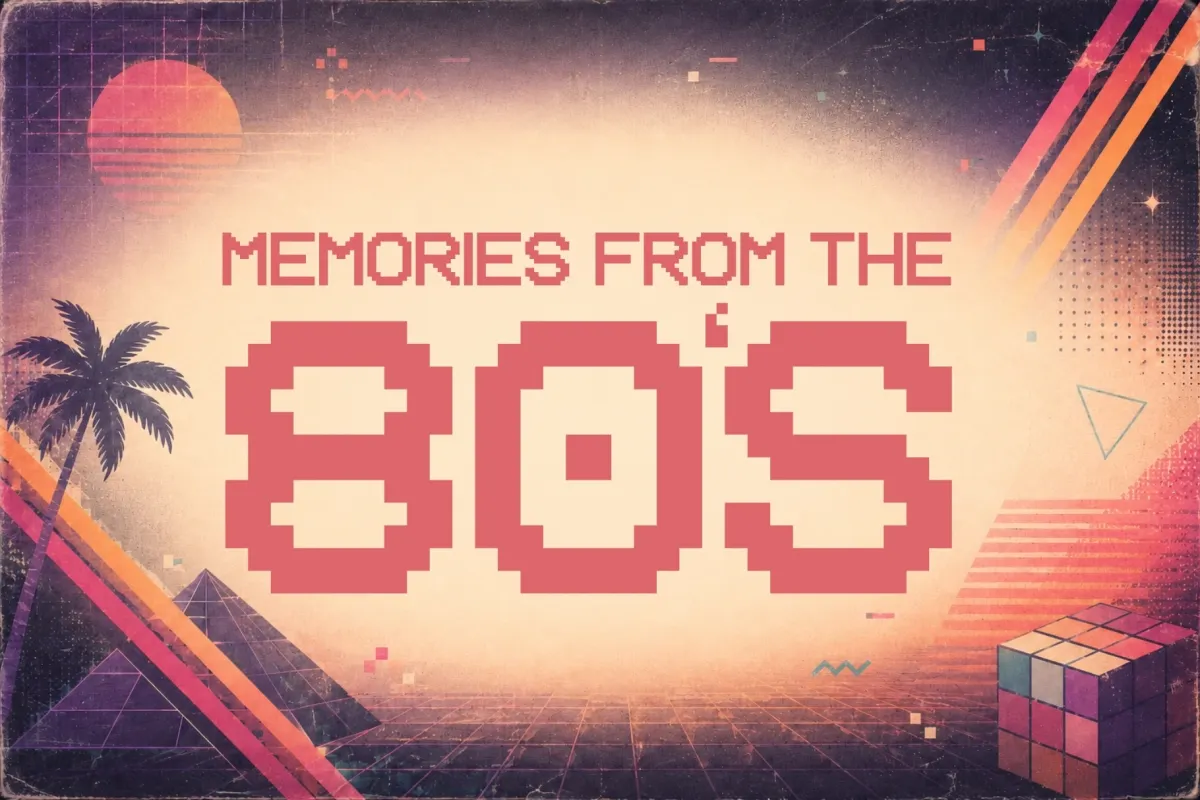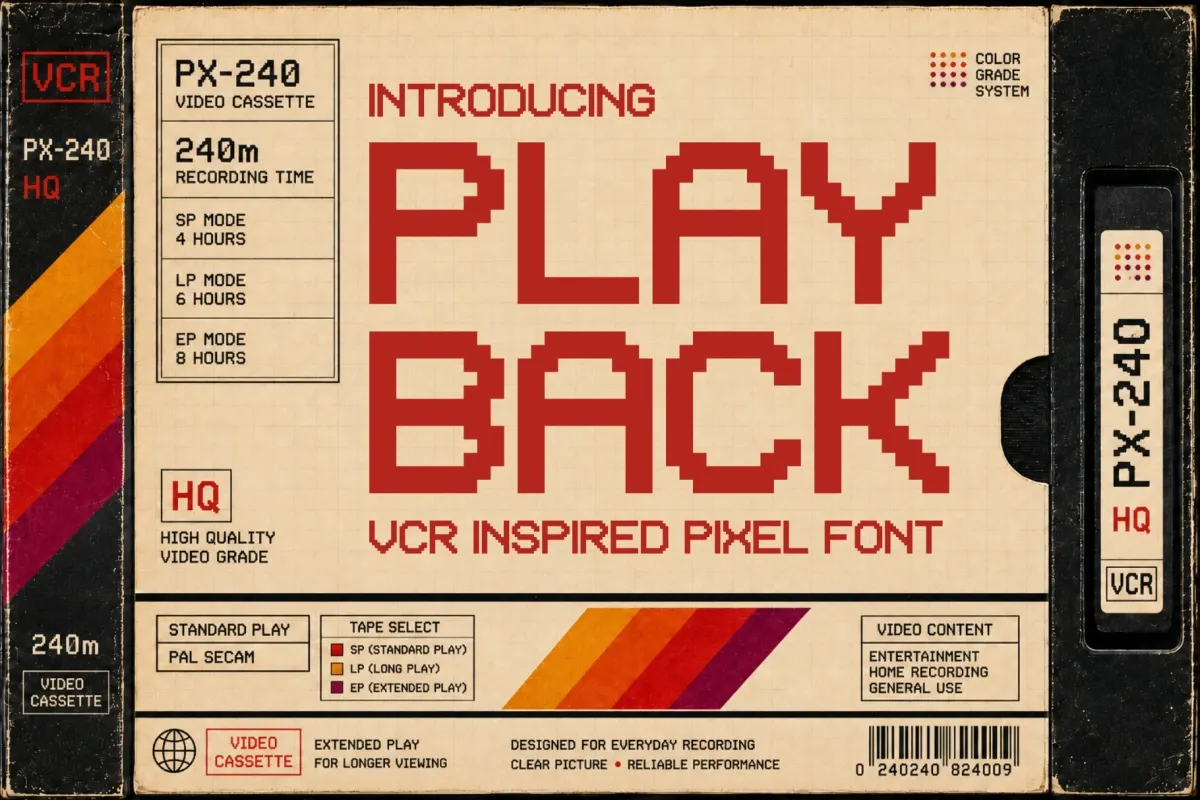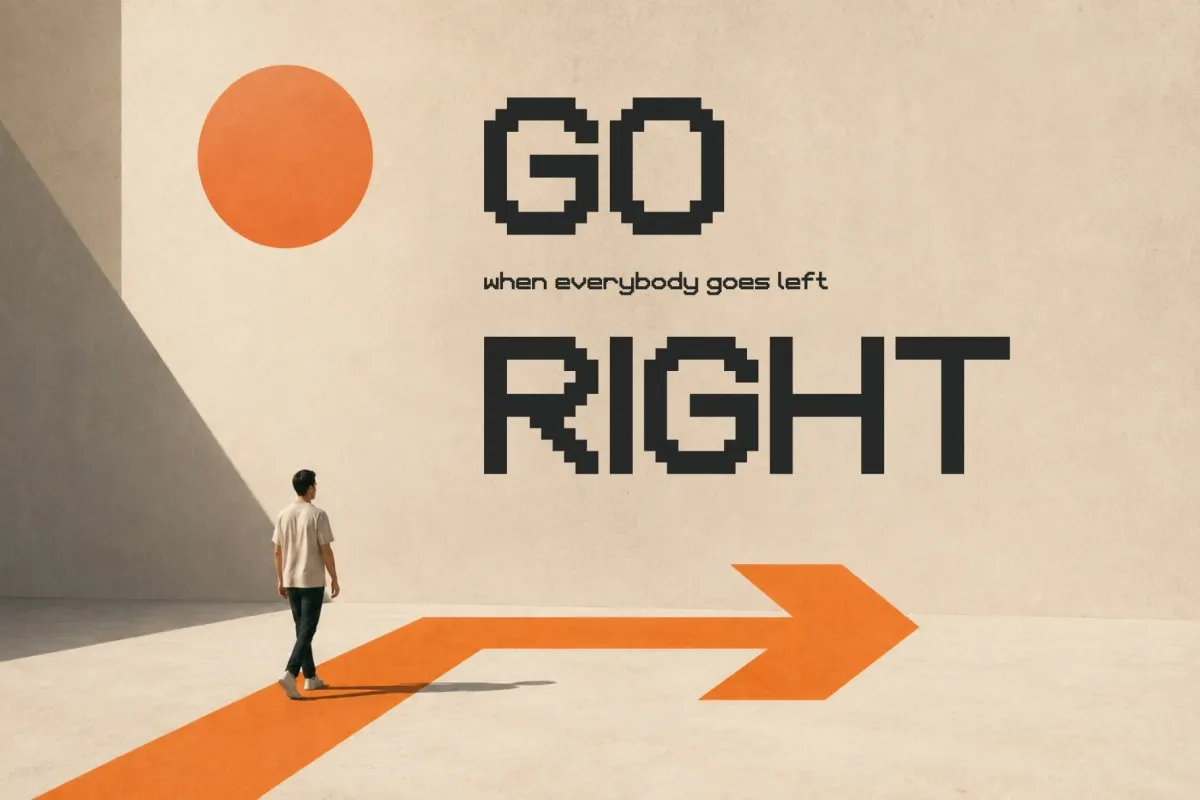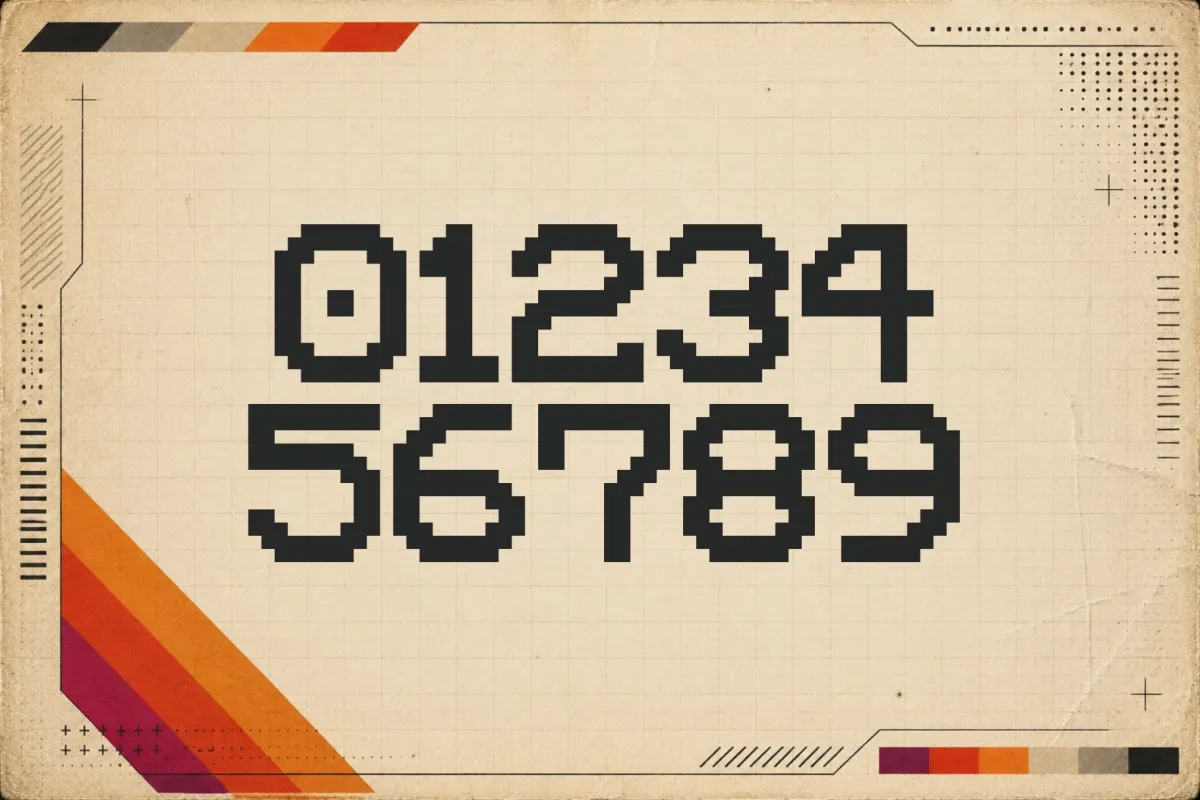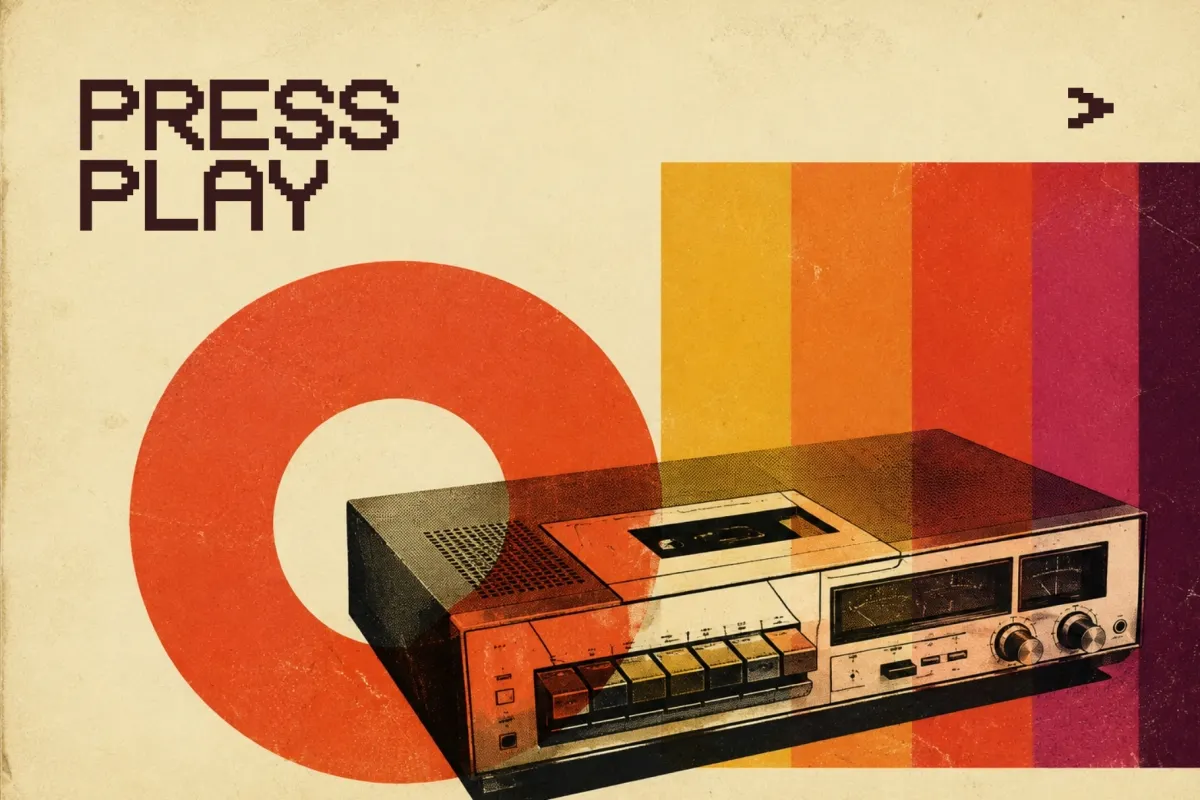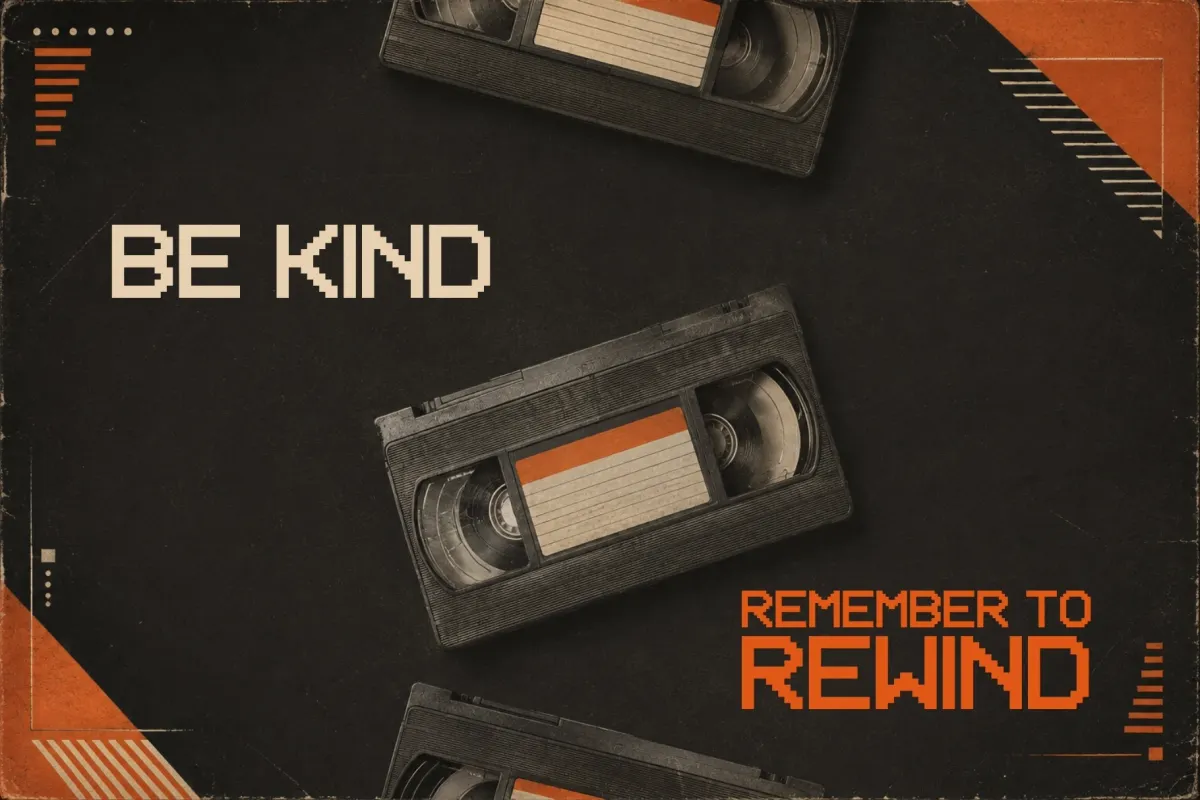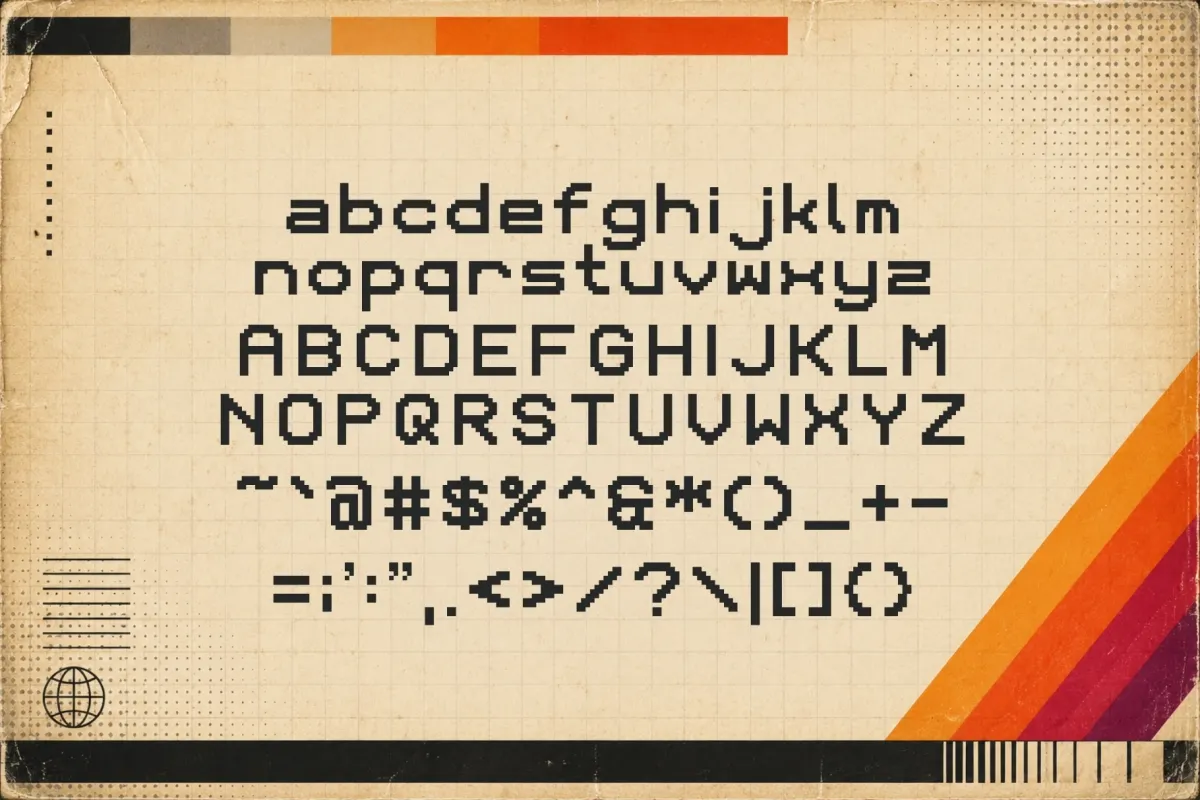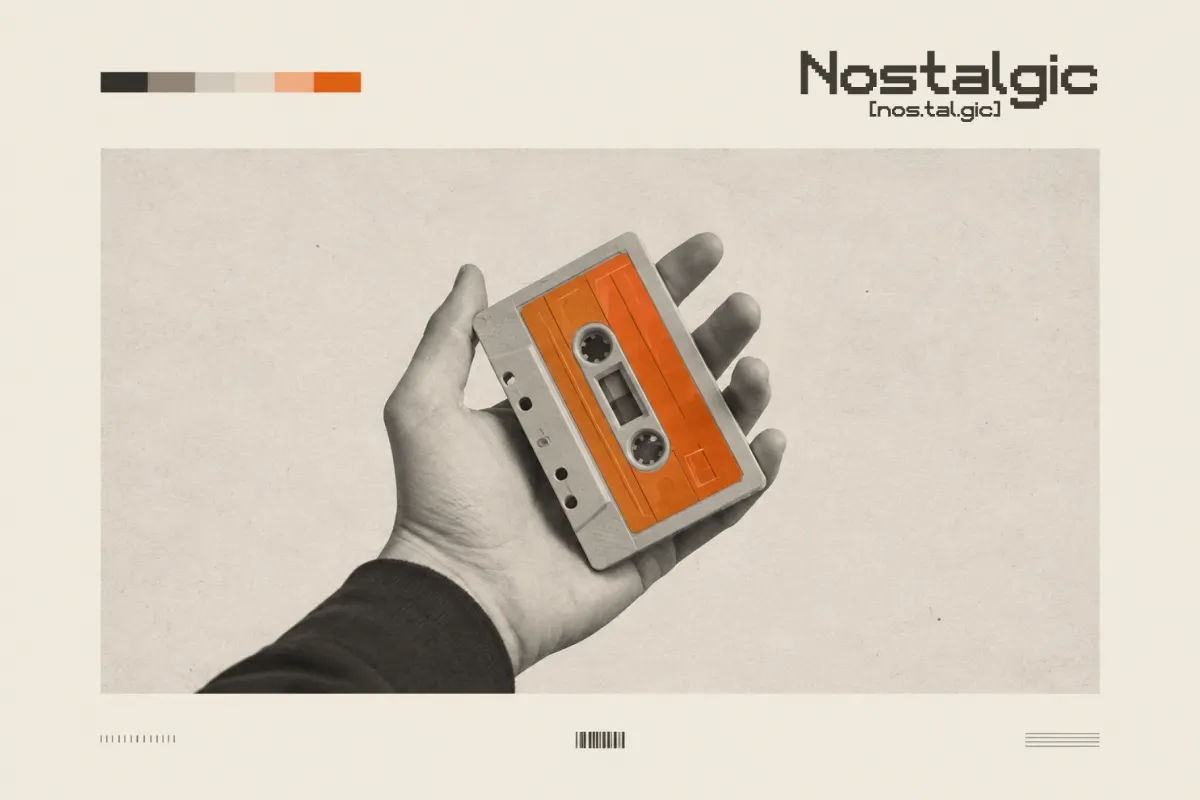
Playback - VCR Pixel Font
Playback
Playback rebuilds every letter from visible square blocks, cl oser to the blocky readout on an 80s VCR display than a drafted computer font. Straight edges and stepped curves hold the shape of early digital screens, giving headlines a chunky, low-resolution presence that still reads clearly at large sizes — a pixel font built as much for stacked tech logos as for VHS-style cover art.
Use it for retro tech branding, gaming interfaces, cassette and VHS-style packaging, album covers, arcade graphics, and social posts that lean into an analog-digital contrast.